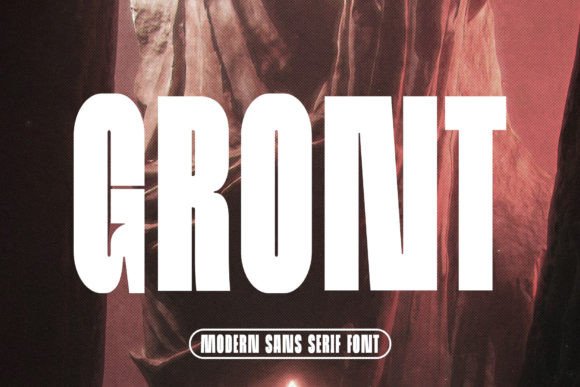
In the realm of digital creativity, fonts hold the power to transform words into captivating expressions of art. Gront Font, the exquisite sans serif creation by Perfectype, stands as a testament to this transformative ability. With its modern and unique shape, coupled with a writing style that exudes natural elegance, Gront Font invites you to embark on a typographic journey like no other.
Step into the world of Gront Font, where the boundaries of creativity dissolve and endless possibilities await. Whether you're a seasoned designer or just beginning your artistic exploration, this font family will ignite your imagination and elevate your designs to new heights.
Visualize the impact of Gront Font gracing your branding projects, web designs, and editorial endeavors. Its versatility knows no bounds, seamlessly adapting to a myriad of creative expressions. From bold logotypes to heartfelt wedding invitations, from romantic cards to eye-catching labels and packaging, Gront Font becomes a canvas for your most inspired ideas, bringing them to life with unmatched artistry.
The intricate details of each letterform in Gront Font are a testament to the meticulous craftsmanship that went into its creation. Its organic flow and effortless elegance evoke a sense of timeless beauty, while its contemporary charm ensures that your designs remain relevant and striking in the ever-evolving digital landscape.
Embrace Gront Font as the transformative element that breathes life into your creative pursuits. Unleash its power to enhance the visual appeal of your designs, captivate your audience, and leave an indelible mark on the world of typography. Let Gront Font be your creative companion, guiding you towards design triumphs that resonate with grace, sophistication, and enduring appeal.